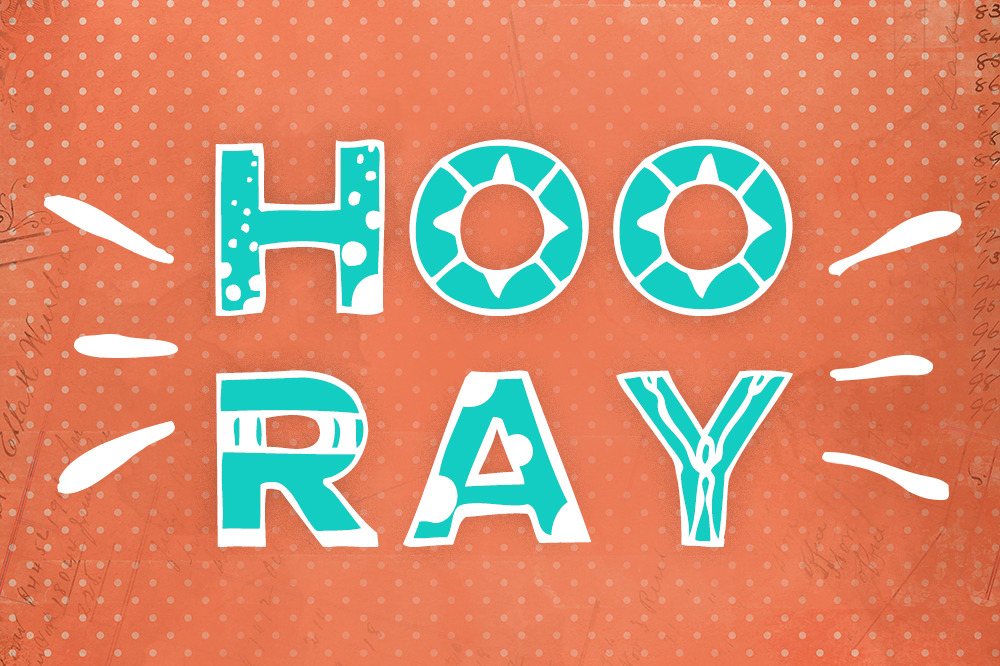
Hooray! Hand-drawn Fonts
Hooray! is hand-drawn layered font system designed with love. Perfect for funny cards, cute websites headers, remarkable posters and all hand-drawn related purposes.
'Hooray!' Font System contains three fonts inside: • 'Hooray! Outlines' (2nd screenshot) • 'Hooray! Fills' (3rd screenshot) • 'Hooray! Circles' (5th screenshot)
You can mix them to achieve the effect you like the most (see 4th screenshot with mixed Outlines and Fills).